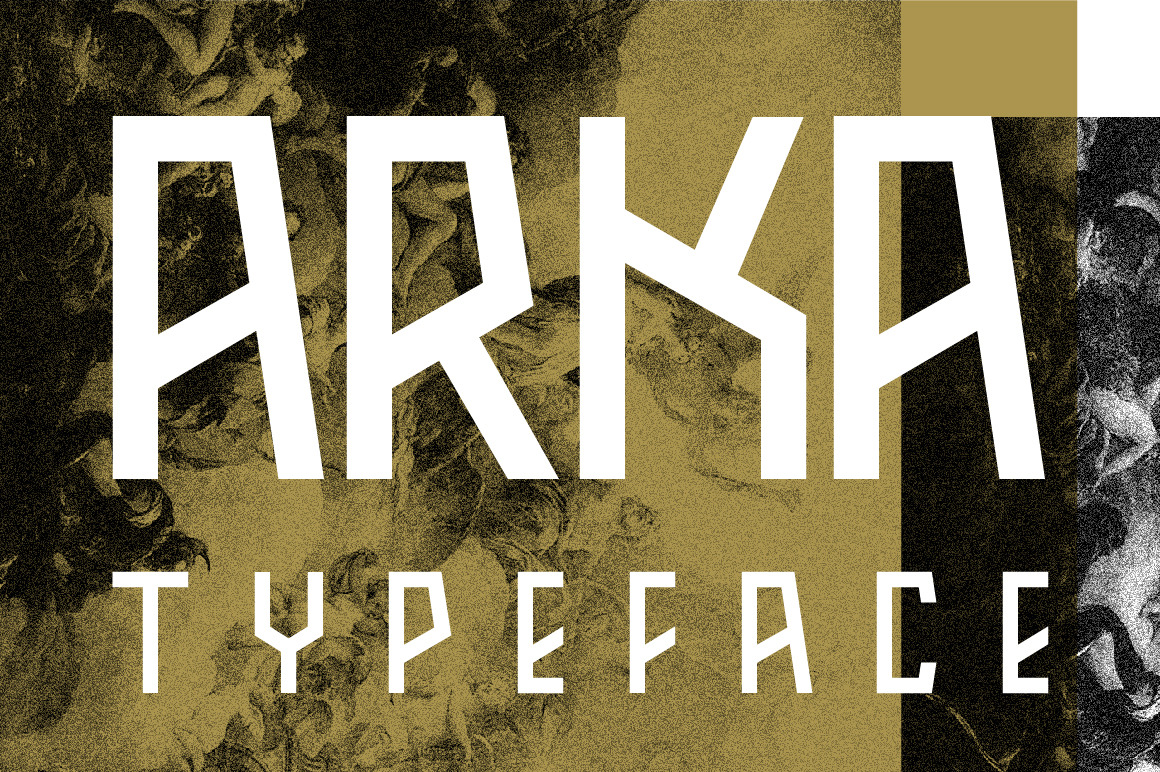
Arka Typeface
Arka is a display typeface inspired by the greek mythology, it's best used for headlines, titles or sub-titles but it can also be used to whatever your creativity leads you.
Available weights: Regular / Bold
Full glyph coverage for Western Europe, Southern Europe, Central Europe and Afrikaans.